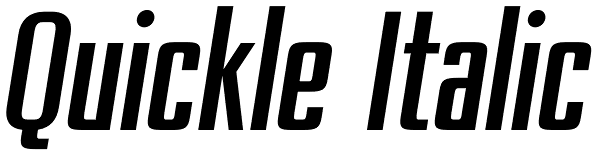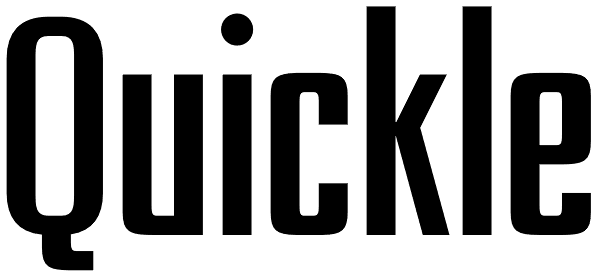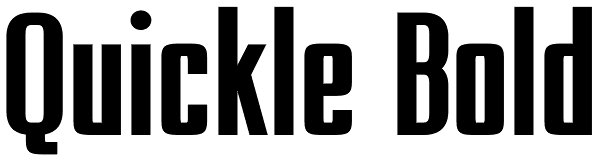
Quickle
Quickle is a square-ish sans-serif, and the design principle is to have clean upright lines and very few round characters - in fact it's the rounded corners that contain all the curves. It's a formal font that's slightly different -- it has its own...